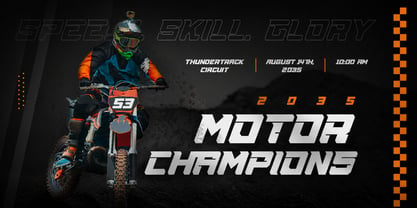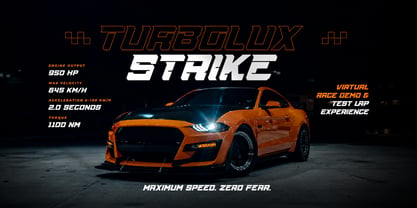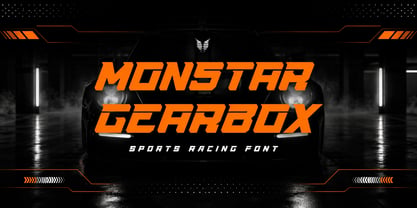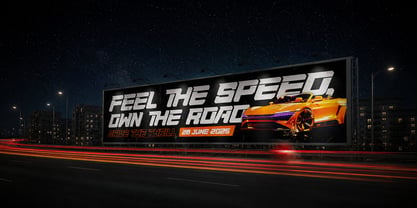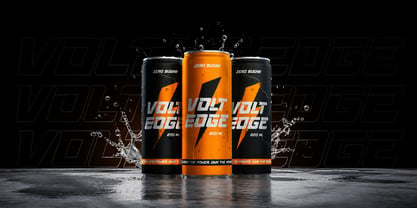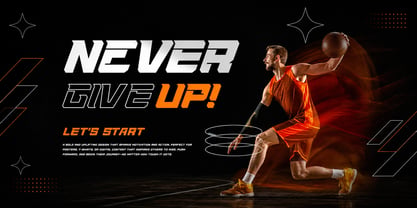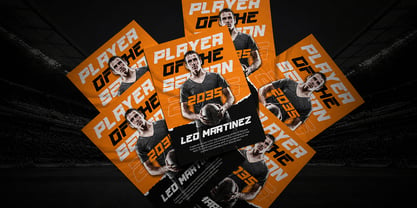
Monstar Gearbox
by Unitype Studio
The Monstar Gearbox Font Family was designed by Faizul Muna and published by Unitype Studio. Monstar Gearbox contains 1 styles. More about this family
MONSTAR GEARBOX is a bold and aggressive display font designed to capture the energy of racing, sports, and high-octane action. With sharp angles, strong lines, and a commanding presence, this all-caps font embodies motion and intensity. Whether it’s roaring engines or fierce competition, MONSTAR delivers the visual power to match.
Built for impact, MONSTAR GEARBOX excels in branding for racing events, sports competitions, action-packed films, and extreme lifestyle campaigns. Its rugged style is tailor-made for logotypes, automotive posters, and sports-themed content that demands attention. The font channels the adrenaline and ambition of high-speed pursuits and active culture.
MONSTAR GEARBOX offers a wide range of alternate characters and dynamic ligatures, allowing for creative flexibility and customization. Its versatility makes it ideal for jerseys, decals, flags, and bold packaging. Every curve and edge is crafted to maintain a sense of velocity and strength, whether in motion or at rest.
Its futuristic aesthetic also lends itself well to techno, gaming, and modern digital themes. MONSTAR GEARBOX fits seamlessly across both print and digital media, elevating visuals with a punch of grit and dominance. It’s more than a font—it’s a statement of drive and performance.